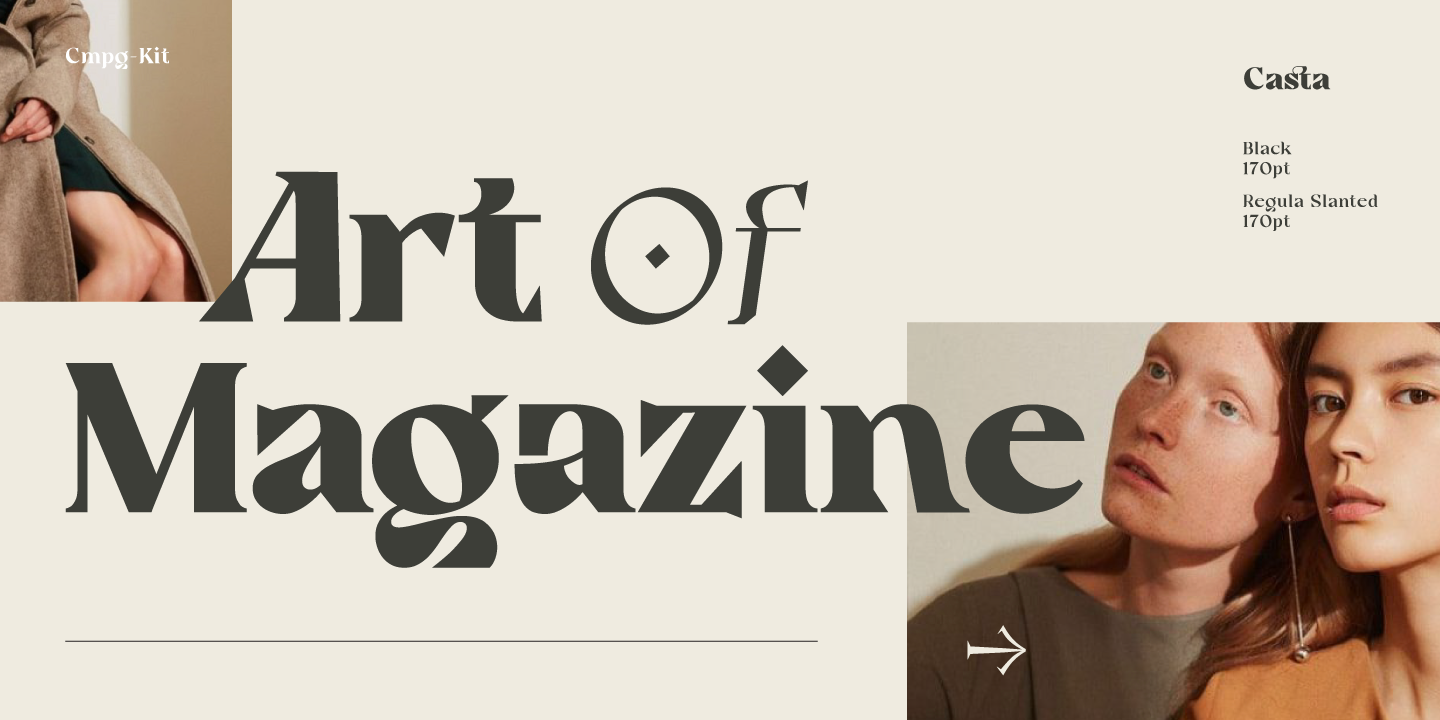
Casta Font is perfect for luxury branding, fashion magazines, elegant logos, high-end packaging, sophisticated websites, premium product labels, editorial headlines, corporate presentations, and upscale restaurant menus.
What makes Casta Font exciting is its refined elegance and modern sophistication that instantly elevates any design project. The carefully balanced letterforms and clean geometric structure create a premium aesthetic that commands attention and respect.
Casta Font family includes light, regular, medium, bold, and black weights, along with their corresponding italic versions, offering designers complete flexibility for comprehensive branding and typography systems.
Elevate your design projects with the sophisticated appeal of Casta Font Free Download. This premium typeface combines contemporary style with timeless elegance, making it an exceptional choice for luxury brands and high-end publications. The meticulously crafted characters ensure perfect legibility across all media formats while maintaining their distinctive premium appearance. Professional designers consistently choose this font for projects requiring refined aesthetics and modern sophistication. Its versatile nature makes it suitable for both headline and body text applications, providing seamless integration throughout your design hierarchy. Experience the perfect balance of style and functionality that transforms ordinary projects into extraordinary visual experiences with this outstanding typography solution.